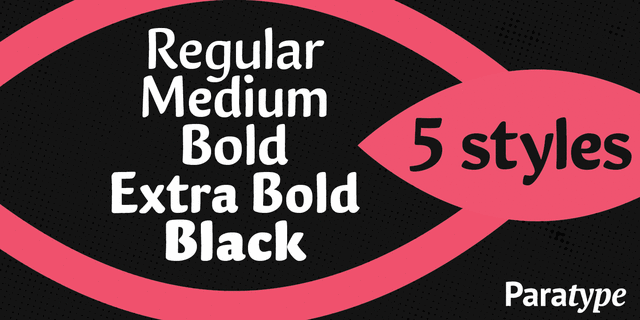
Muffin (5 fonts)
About MuffinMuffin is a soft and rounded humanistic low-contrast sans serif based on broad nib writing. It comes in five weights ranging from Regular to Black. The friendly character of the font becomes even more pronounced in the darkest styles. Muffin is well suited for food packaging, menus, children's products, while Regular may be easily used for long runs of text. The font was designed by Natalia Vasilyeva and released by Paratype in 2017.
Associations for font family MuffinTypeface personality and character:
Soft, pleasant, cozy, comfortable, clear, friendly, kind, polite, beautiful, orderly, optimistic, leisurely, moderate, cute, summer, family, home, organic, delicious, natural, green, fresh, confidence, original, interesting, laconic, plastic, flexible, smooth, high-quality, dynamic, clean, harmonious, calm, cultural, educated, cartoonish, festive, honest, simple, nice, peaceful, juicy, warm, appetizing, hot, healthy, playful, bright, expressive, notable, splashy, motivating, strong, funny, cool, benevolent, affable, alive, man-made, glad, positive, manual, heavy, fat, children, active, generous, abundant, plentiful, saturated